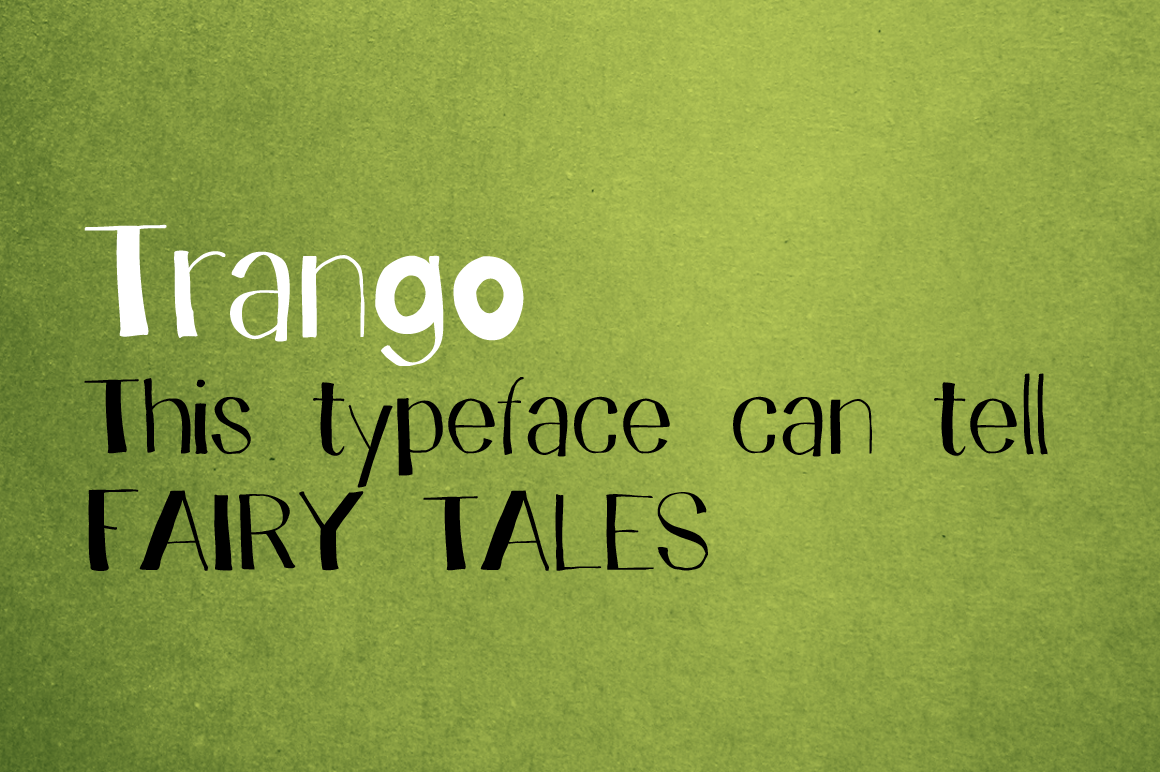
Trango Font
A funny childish handwritten font, with a spirit. This typeface can tell fairy tales.
Trango is a sans serif that goes well with the slab serif Besley Hand.